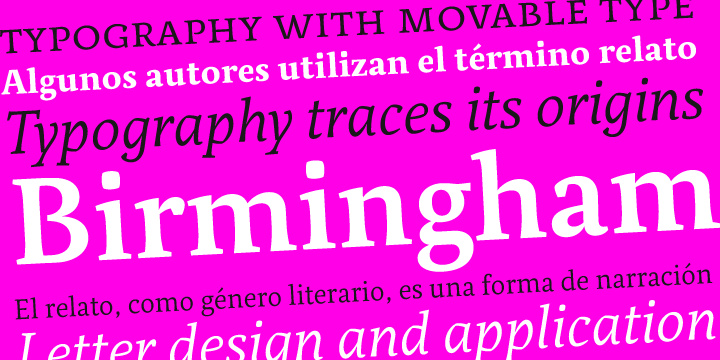
Relato has a low contrast and “a muscular” structure that makes it useful for setting longer text. In display sizes it has a variety of details that lends it a unique and personal expression. The formal principle of the serif, the variety of terminal strokes and the combination of curves and semi-straight lines gives the Relato a more “human” flavor.
The inspiration for the design comes from different traditional calligraphic styles. The upper case letter, for example, is based on roman capitals from the Rennaissance, whereas the lower case relates to humanist handwriting. Even so, Relato is a decidedly contemporary typeface, proposing individual ideas on the design of type. More…
The italic has a distinct typographic color thanks to the construction principle of broken lines. The bold weights have an increased contrast in the union of the strokes which helps improve legibility in small sizes and reinforce their personality in display sizes.
The family consists of a Regular version, Italic, Small caps, Semibold and Bold.